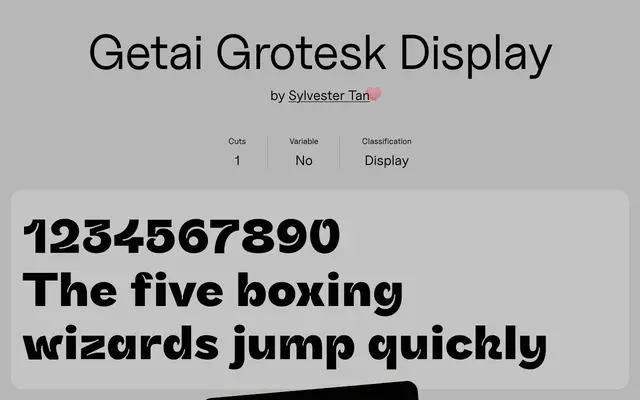
Getai Grotesk Display
A display-oriented grotesque available in one cut, designed by Sylvester Tan and distributed freely under the SIL Open Font License 1.1. The licence permits commercial use, modification and redistribution, with some conditions attached to derivative works. With no variable axis and no italic, it is a pared-back offering suited to headline and display applications.
Classified as Display by the foundry; a grotesque adapted for large-scale display use rather than text setting.